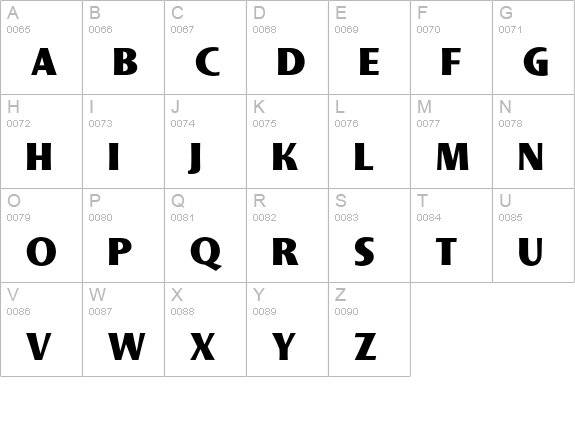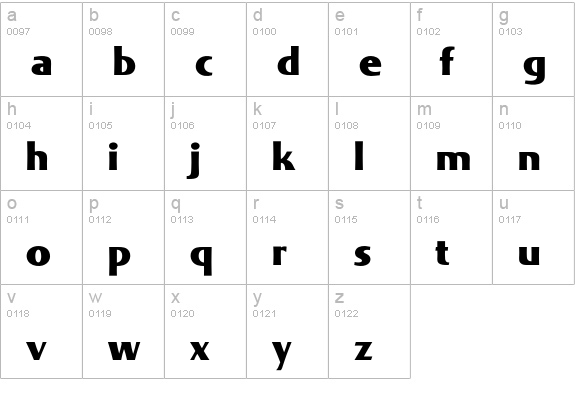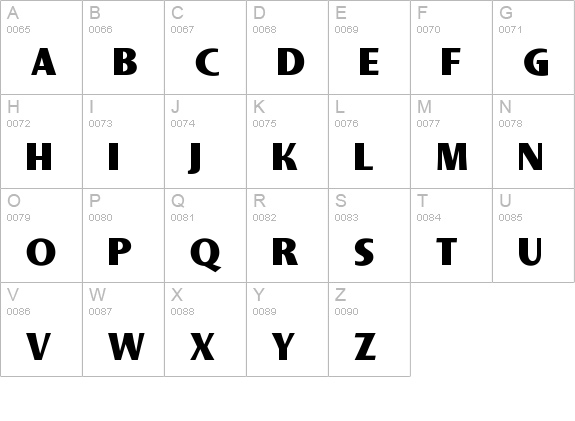
Isfahan Font Details
Isfahan font is a stunning display font that combines elegance with a touch of modernity. Its beautifully crafted letterforms exude sophistication and charm, making it perfect for a wide range of design projects. This font is designed with meticulous attention to detail, ensuring each letter is perfectly balanced and visually pleasing. The strokes are fluid and graceful, creating a harmonious flow that is pleasing to the eye. Isfahan font is not only visually appealing, but it also offers great versatility. Whether you're designing a logo, creating a poster, or crafting a wedding invitation, this font will add a touch of elegance and style to your project. One of the best things about Isfahan font is that it is free! Yes, you read that right. This font is freely available to download at FontsMarket.com. You can easily access it and start using it in your designs without any cost. So why wait? Download Isfahan font today and elevate your design projects to a whole new level of sophistication and beauty. Whether you're a professional designer or just someone who appreciates great typography, this font is a must-have in your collection. Don't miss out on the opportunity to enhance your designs with this stunning and freely available font.